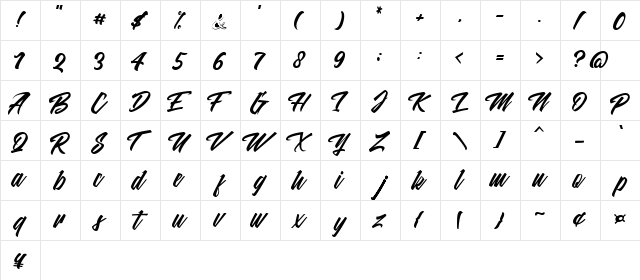
Malanaya Script Regular
| Designer | Faras Dina |
Design Context for Malanaya Script Typeface
Malanaya Script brings a calligraphic fluidity to the page — its connecting strokes and expressive curves give it an unmistakably human quality.